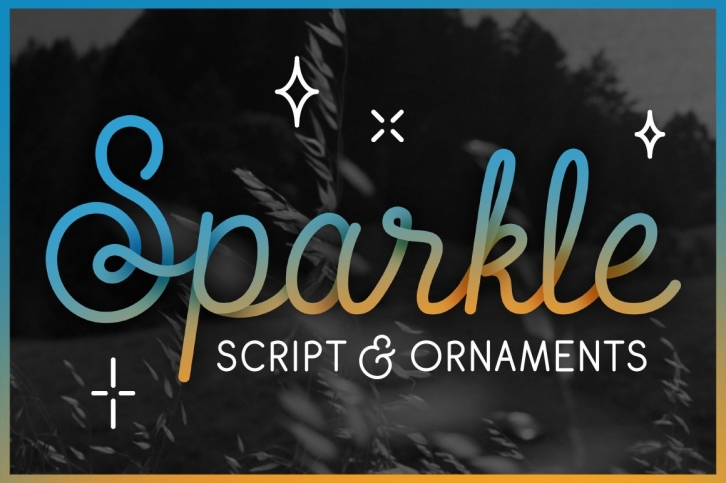
Sparkle is a friendly, highly-customizable script font. Created in response to seeing many overly-stylized, extremely slanted script fonts, Sparkle Script places an emphasis on legibility with its upright, monoline strokes. Using the power of OpenType, many letters automatically adjust to fit together just right.
Sparkle includes the script proper, and a supporting monoline sans serif all caps, while Sparkle Ornaments is a supplementary ornament pack. All components share the same monoline weight, so they look great when used together and result in around 800 glyphs.